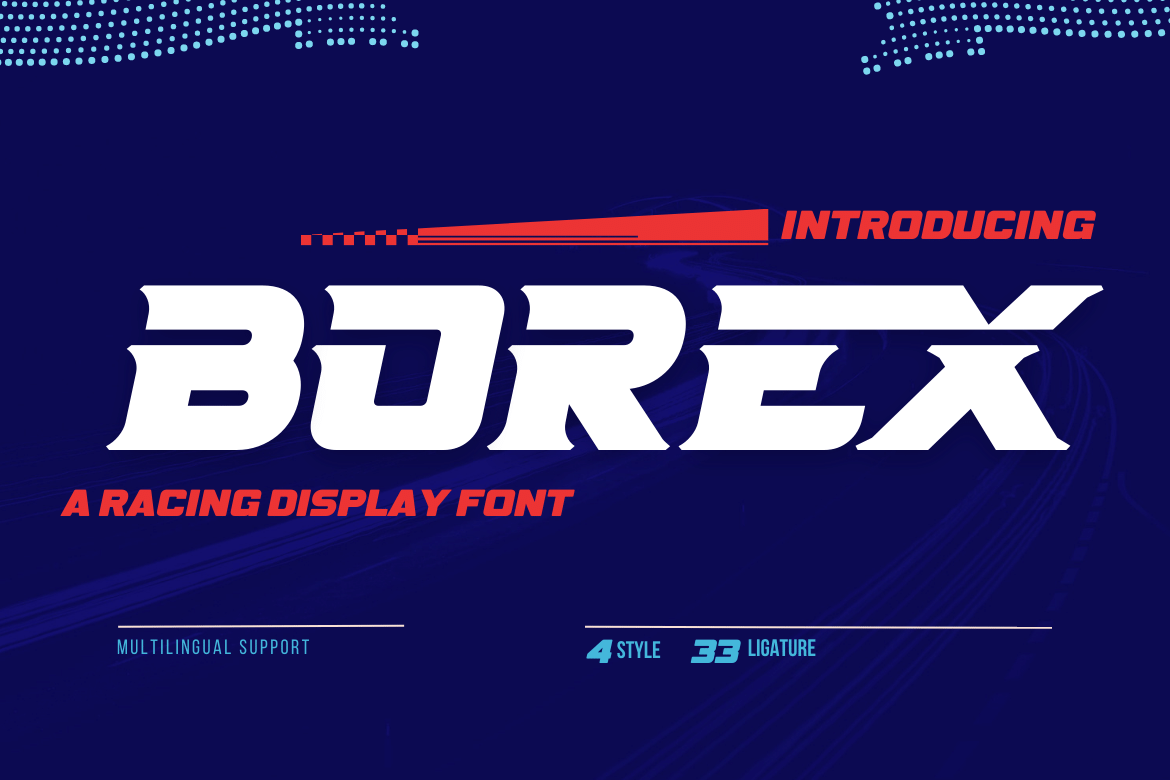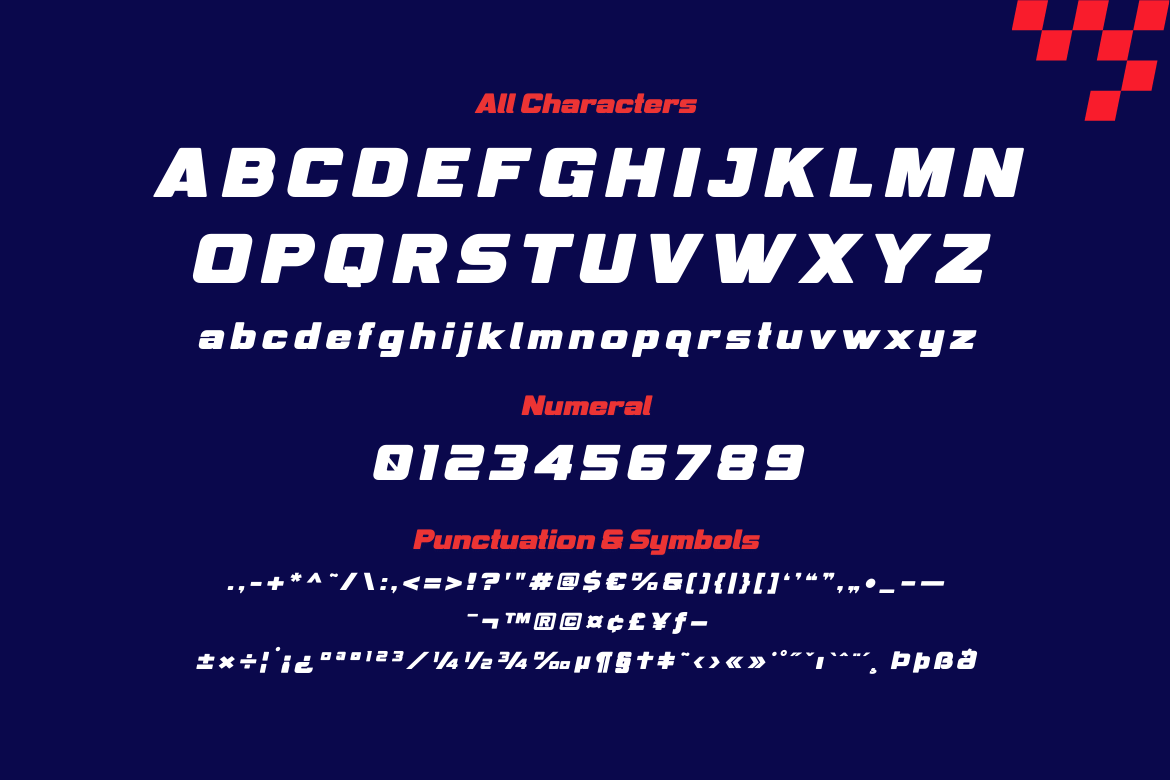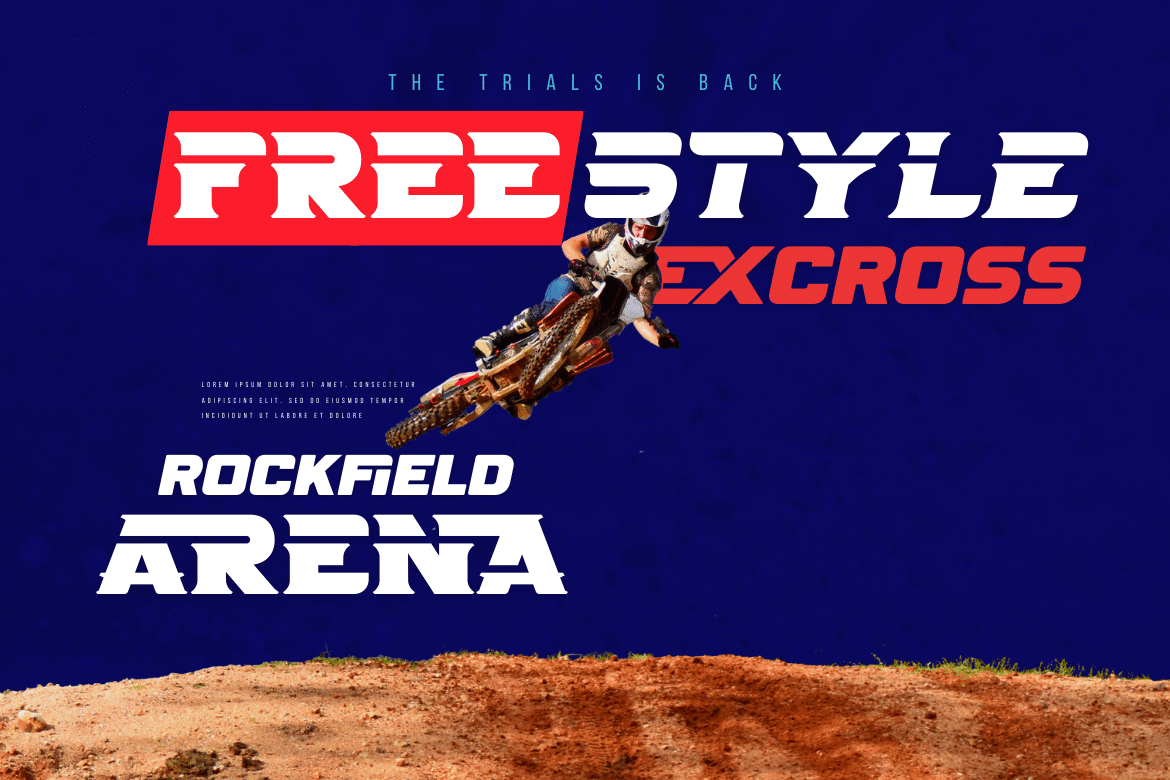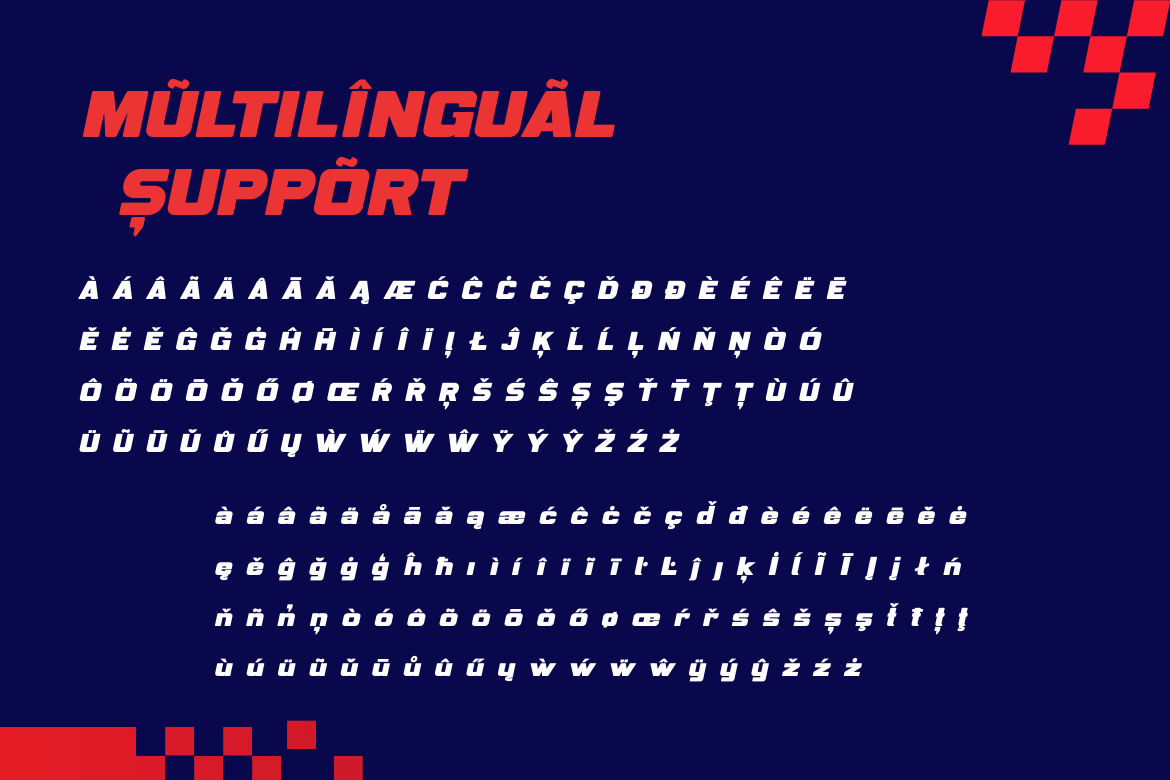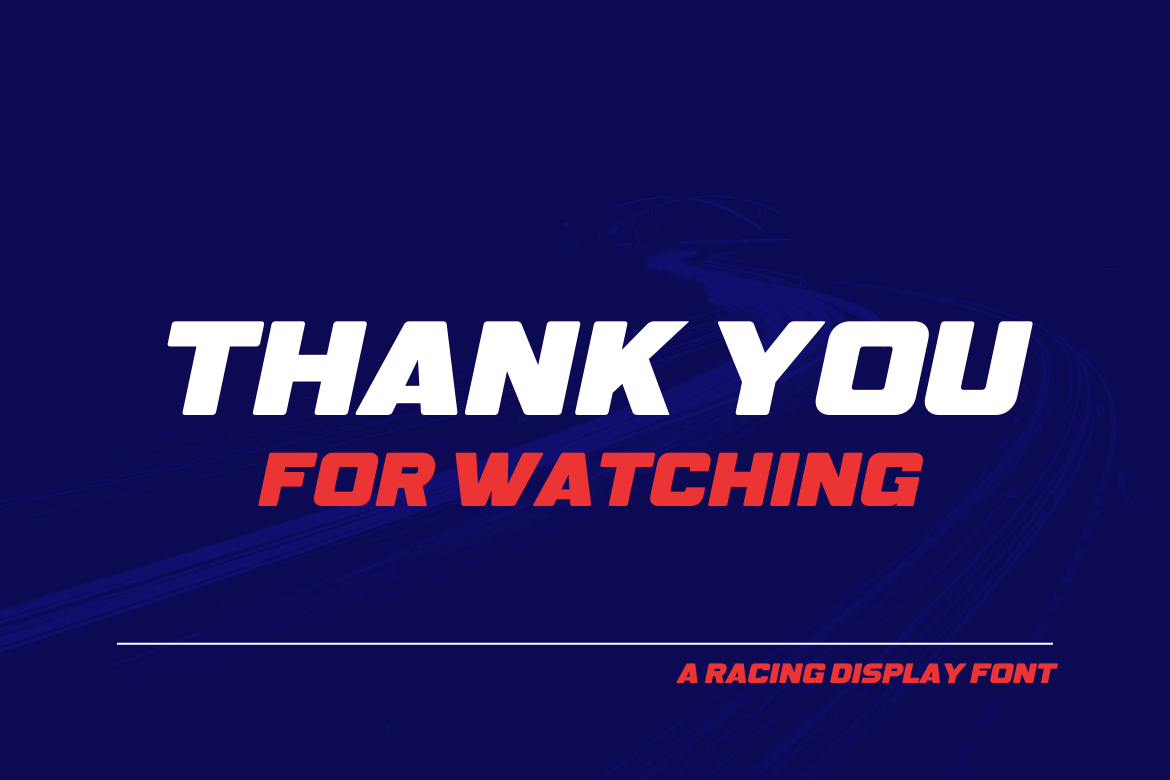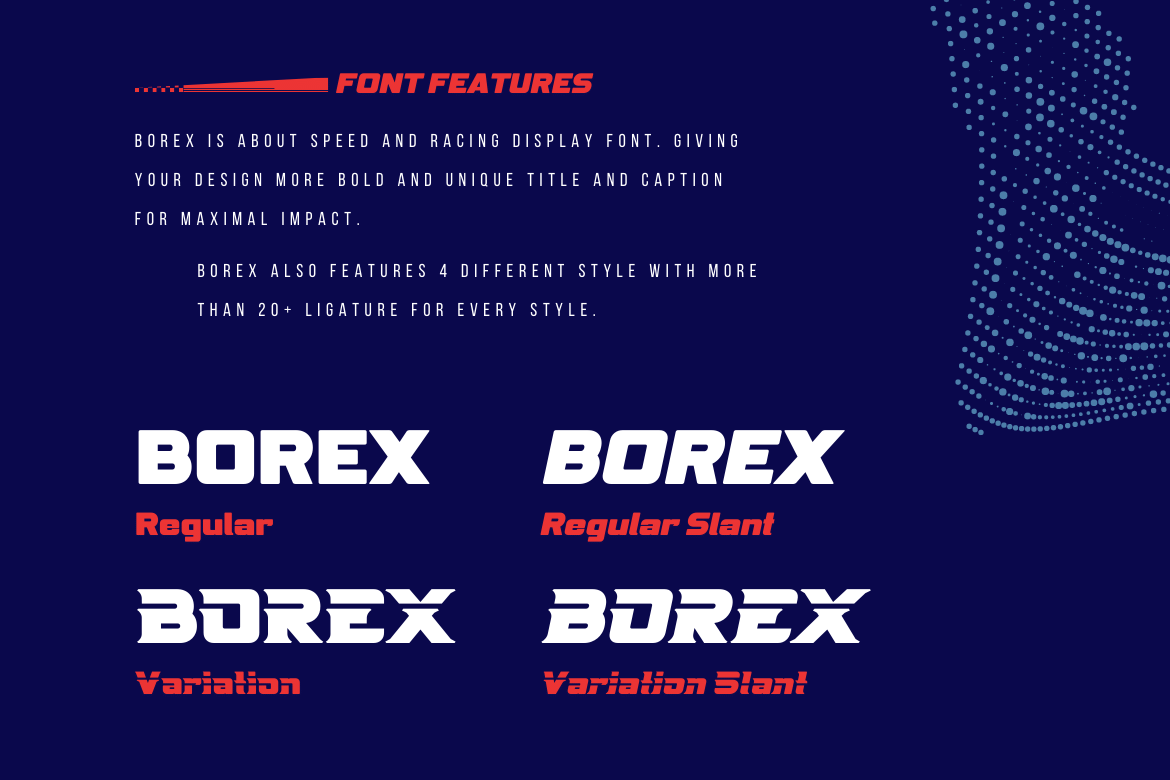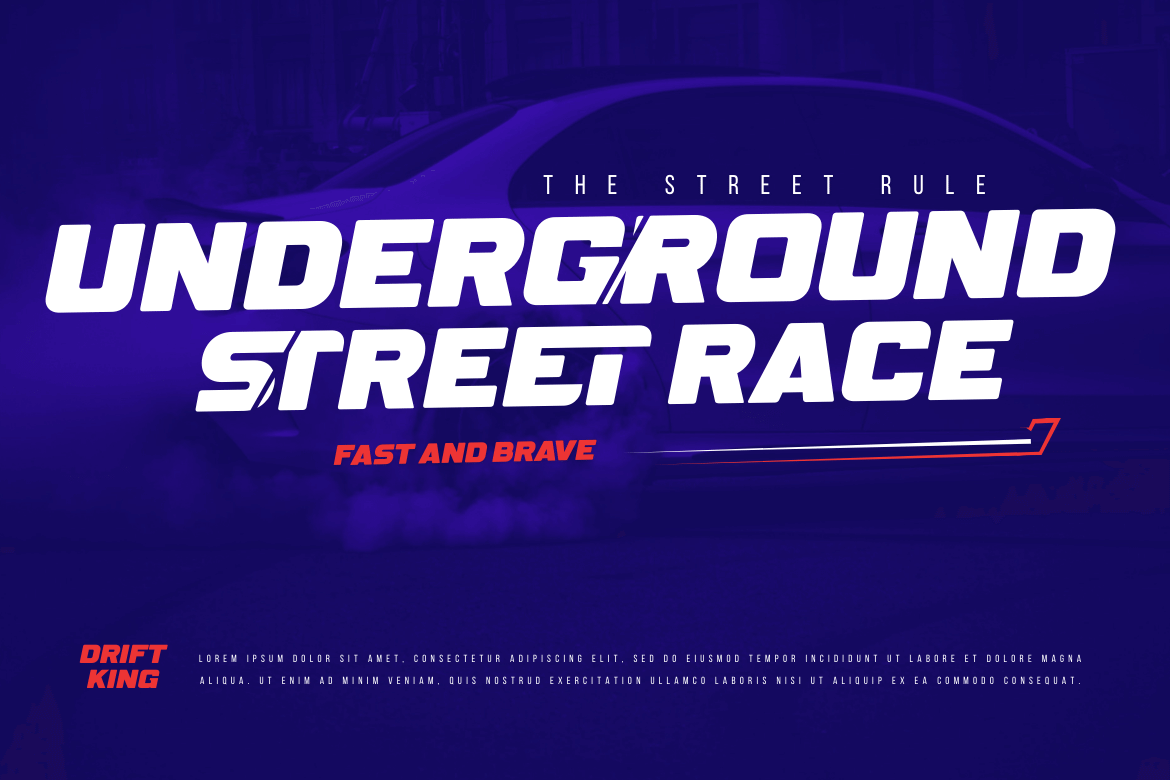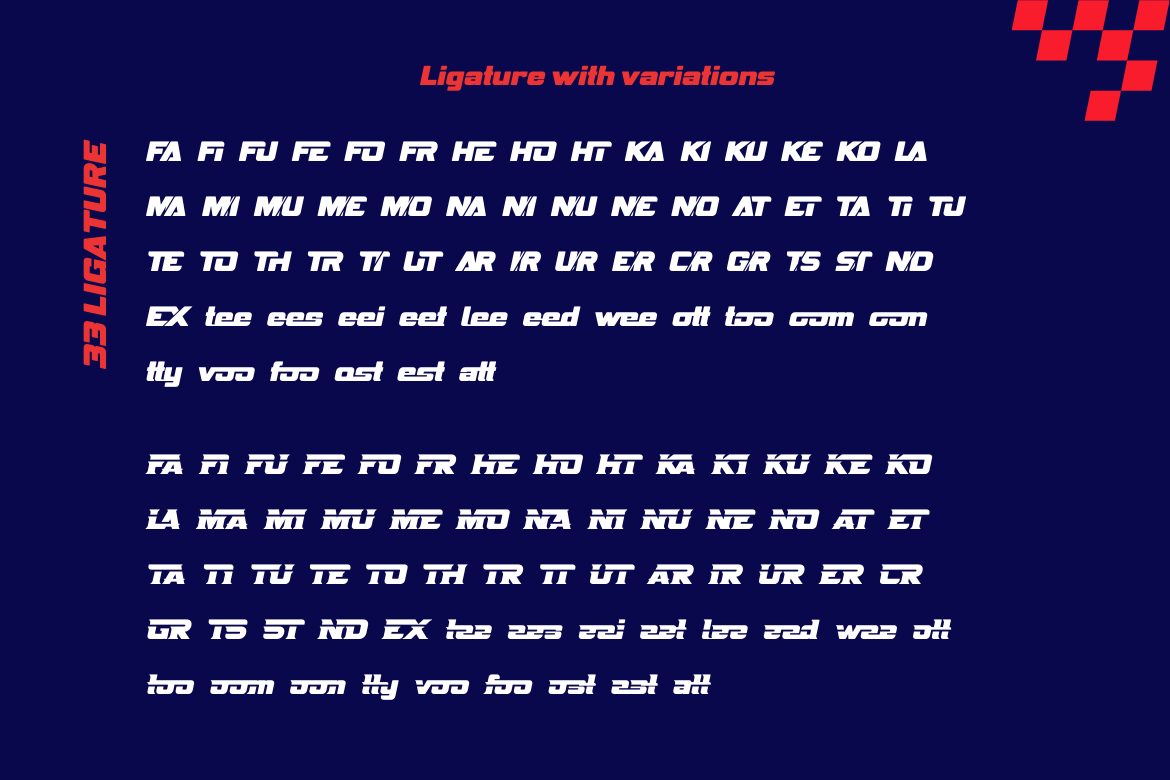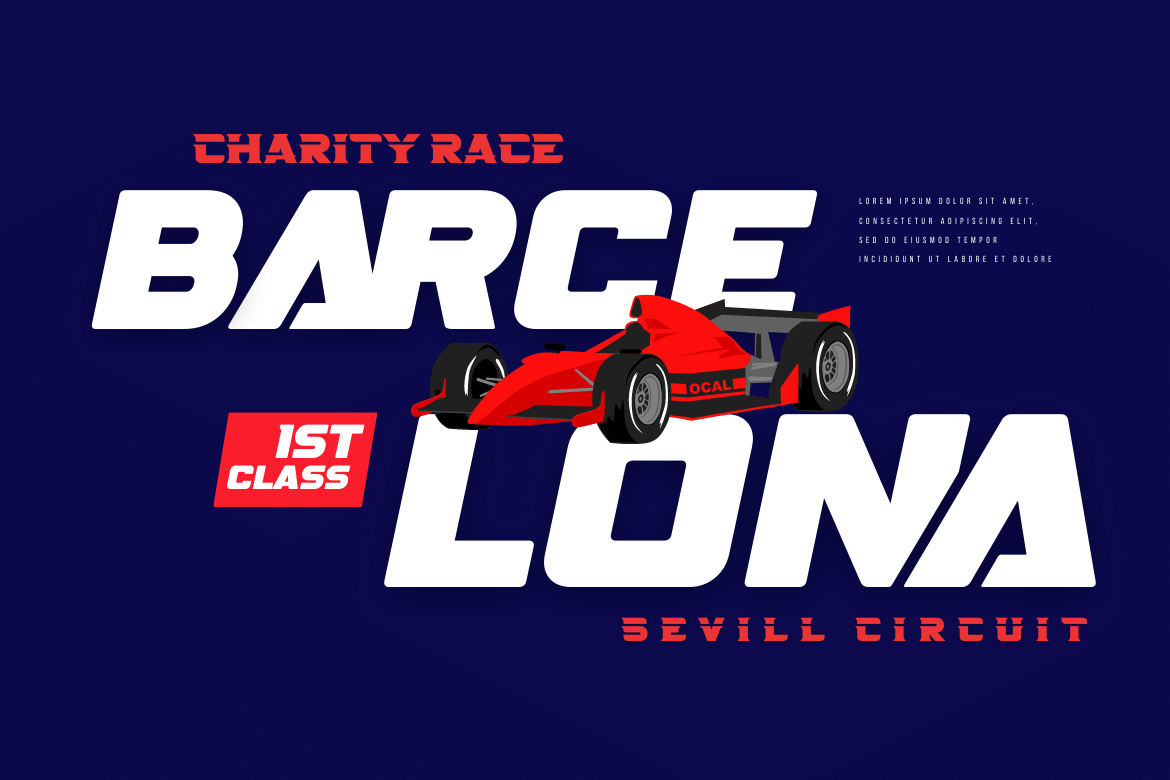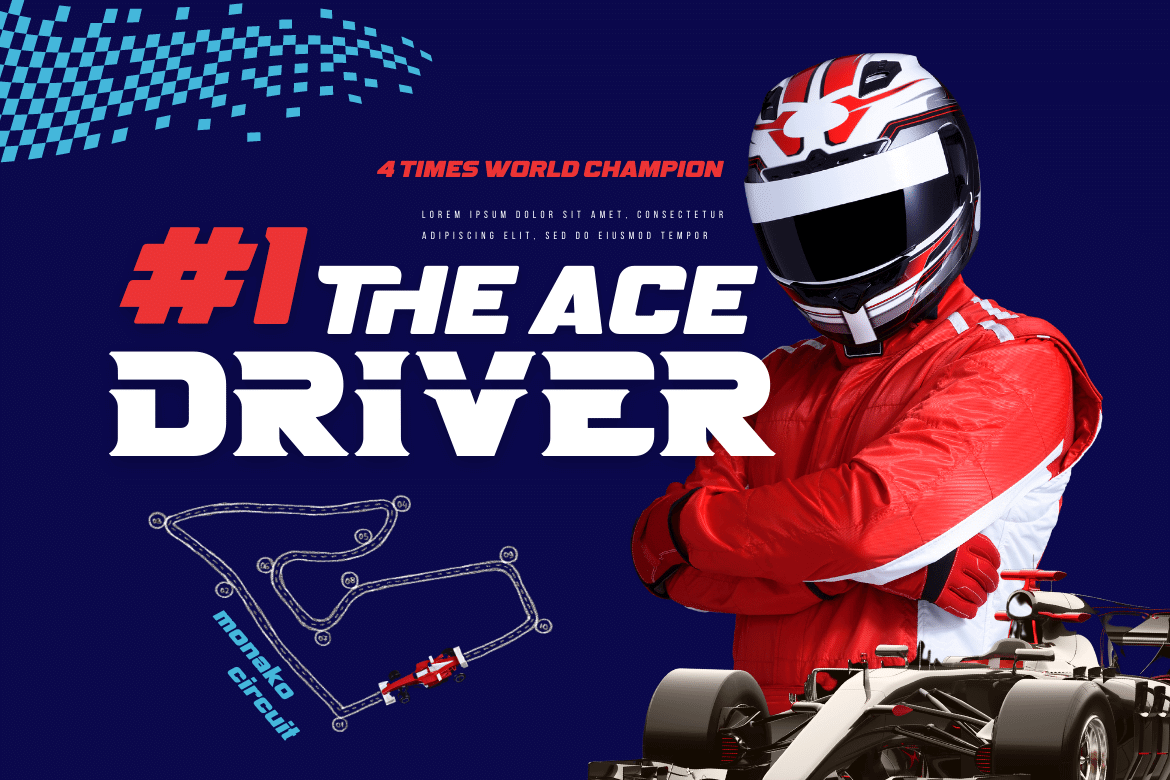
Borex | Athletic Font
Introducing Borex, the ultimate font for all your sport racing needs. With its bold and dynamic letterforms, it captures the excitement and energy of the race track. And with four unique variations, including regular, slant, and taper styles, you can customize your designs to fit the tone and theme of your project. Not to mention, the font also comes equipped with alternate characters and unique ligatures to add an extra touch of creativity. So rev up your designs with Borex and get ready for the finish line!
- Alternate, Ligature